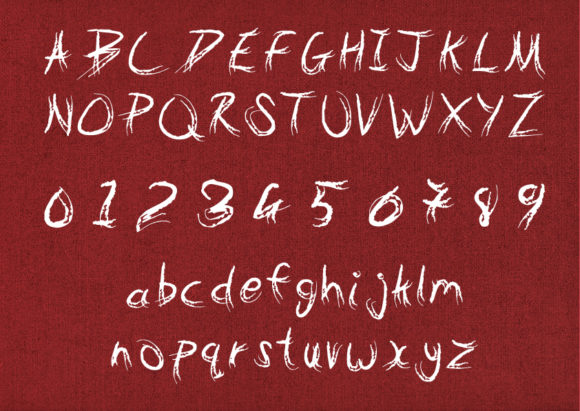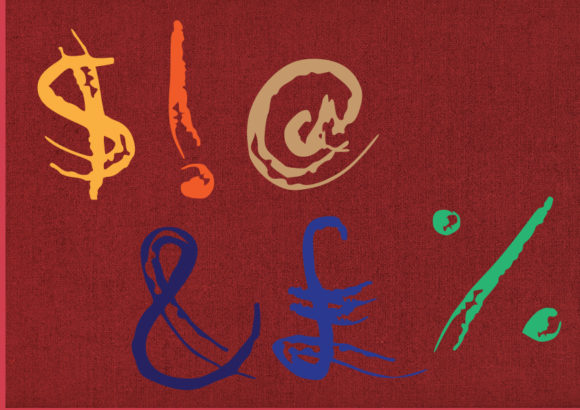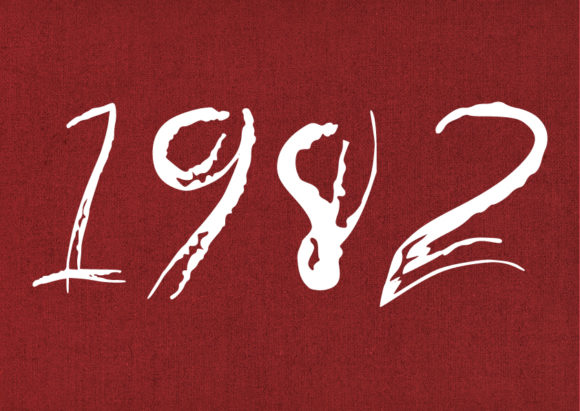
Unleash Your Creativity with Art Signature Font
You’ve spent hours brainstorming, sketching, and perfecting your design concept, and finally, you’re about to bring it to life. But, something’s missing – that extra oomph that sets your creation apart from the rest. This is where the magic of typography comes in, and for designers, the right font can be the game-changer.
Enter Art Signature Font, a stunning typeface inspired by the world of art. Its unique charm and raw feel will add an undeniable touch to any design, making it perfect for creative projects that need an extra layer of personality. Whether you’re designing a poster, logo, or social media graphics, Art Signature Font will help you convey your artistic vision and leave a lasting impression.
As a valuable tool for designers, Art Signature Font offers endless possibilities for creative expression. Its versatility and distinct style make it an ideal choice for anyone looking to elevate their designs and stand out in a crowded market.
Key Features of Art Signature Font
- Font Type: Handwritten Script Font
- Unique Characteristics: Includes 600+ hand-drawn characters, swashes, and flourishes for a unique, artistic look
Designer Review: Art Signature Font
Overall, I’d say that Art Signature Font is a decent addition to any designer’s toolkit, but it’s not without its quirks.
- Highly customizable: With options to adjust the stroke width, color, and texture, you can create a unique look that suits your brand.
- Easy to use: The font is straightforward to apply, even for designers who are new to font design.
- Limited styles: The font only offers a few pre-designed styles, which can be restrictive for designers who want more options.
- No flexibility with ligatures: The font doesn’t allow for custom ligature settings, which can limit its versatility.
- Quality issues: Some users have reported issues with the font’s quality, such as blurry or distorted text.
While Art Signature Font has its strengths, it’s not the most impressive font I’ve come across. Its limitations and quality issues hold it back from being a top-tier font. However, it’s still a decent choice for designers who want a simple, customizable font.
Tips for Getting the Most Out of Art Signature Font
Use Art Signature Font to add a personal touch to your designs, such as:
- Adding a signature to your artwork or documents.
- Creating a unique logo or branding element.
- Enhancing the visual appeal of your text-based designs.
Art Signature Font is commonly used in:
- Artistic and creative projects.
- Business and professional branding.
- Personalized stationery and invitations.
Alternatives to Art Signature Font
Pacifico is a beautiful, elegant script font perfect for adding a touch of sophistication to your designs. It’s ideal for use in invitations, wedding stationery, and any other project that requires a high-end, luxurious feel.
Compared to Art Signature Font, Pacifico has a more refined and polished look, making it a great choice for designers who want to create a more premium feel.
Great Vibes is a modern, cursive font that’s perfect for creating a fun and playful atmosphere. It’s ideal for use in social media graphics, advertising, and any other project that requires a youthful and energetic feel.
Compared to Art Signature Font, Great Vibes has a more dynamic and lively feel, making it a great choice for designers who want to add a burst of energy to their designs.
Carolyna Pro is a stylish, elegant script font that’s perfect for adding a touch of sophistication to your designs. It’s ideal for use in fashion branding, beauty packaging, and any other project that requires a high-end, luxurious feel.